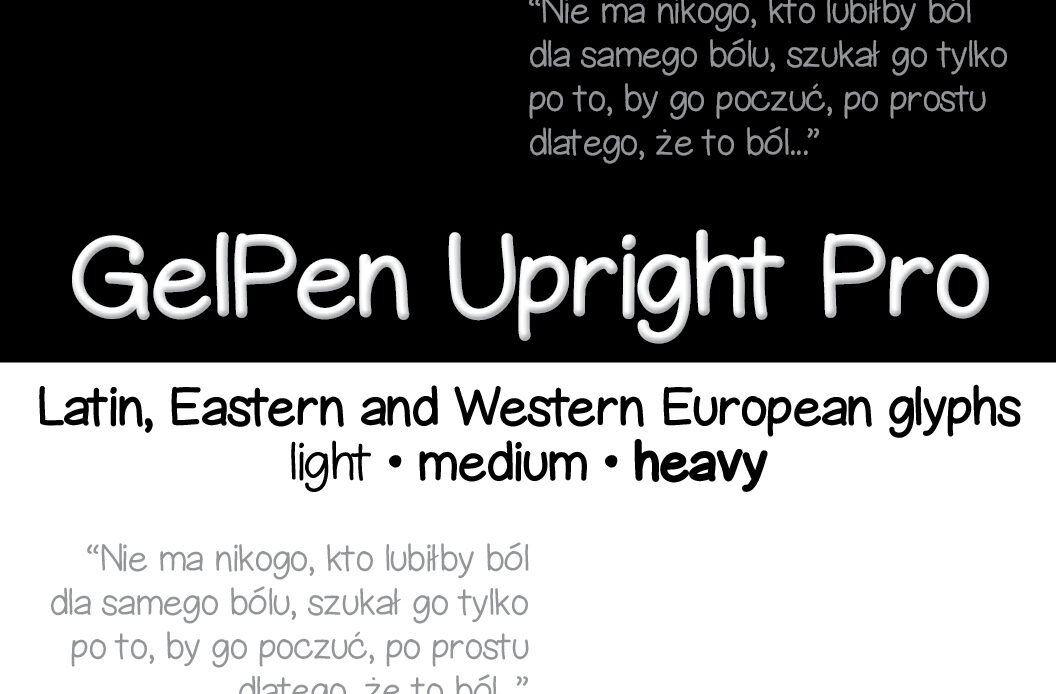
Prepare yourself to be captivated by the GelPen Upright Pro Font, a striking script font family that exudes personality and charm. This remarkable creation by Sharasfonts is a testament to the power of handwritten artistry, meticulously crafted to cater to your creative endeavors.
Step into a world where typography meets imagination, where each letter dances across the page with a whimsical flair. With GelPen Upright Pro, you hold the key to unlock a universe of creative possibilities, adding a touch of playfulness and uniqueness to your designs.
Indulge in the font's quirky charm, allowing it to breathe life into your comic creations, bring cartoons to life with expressive strokes, or add a touch of warmth to small bodies of text. GelPen Upright Pro's international appeal knows no bounds, supporting Latin, East, and West European glyphs to cater to a diverse audience.
But what truly sets GelPen Upright Pro apart is its versatility. It's a font that adapts effortlessly to your creative vision, lending itself seamlessly to a plethora of design projects. Its whimsical nature dances across wedding invitations, adding a touch of whimsy to the special day. It transforms logos into works of art, captivating audiences with its distinctive personality. And when it graces social media posts, it commands attention with its captivating charm.
With GelPen Upright Pro as your creative companion, you embark on a journey of storytelling, a voyage where words become characters and emotions come alive. Its every stroke carries a piece of your narrative, leaving an imprint on the hearts and minds of your audience.
So seize the opportunity to infuse your designs with a touch of magic. Let GelPen Upright Pro be your muse, guiding you through a creative awakening where boundaries dissolve and imagination reigns supreme. Embrace the handwritten beauty of GelPen Upright Pro, and watch as your designs transform into captivating masterpieces.